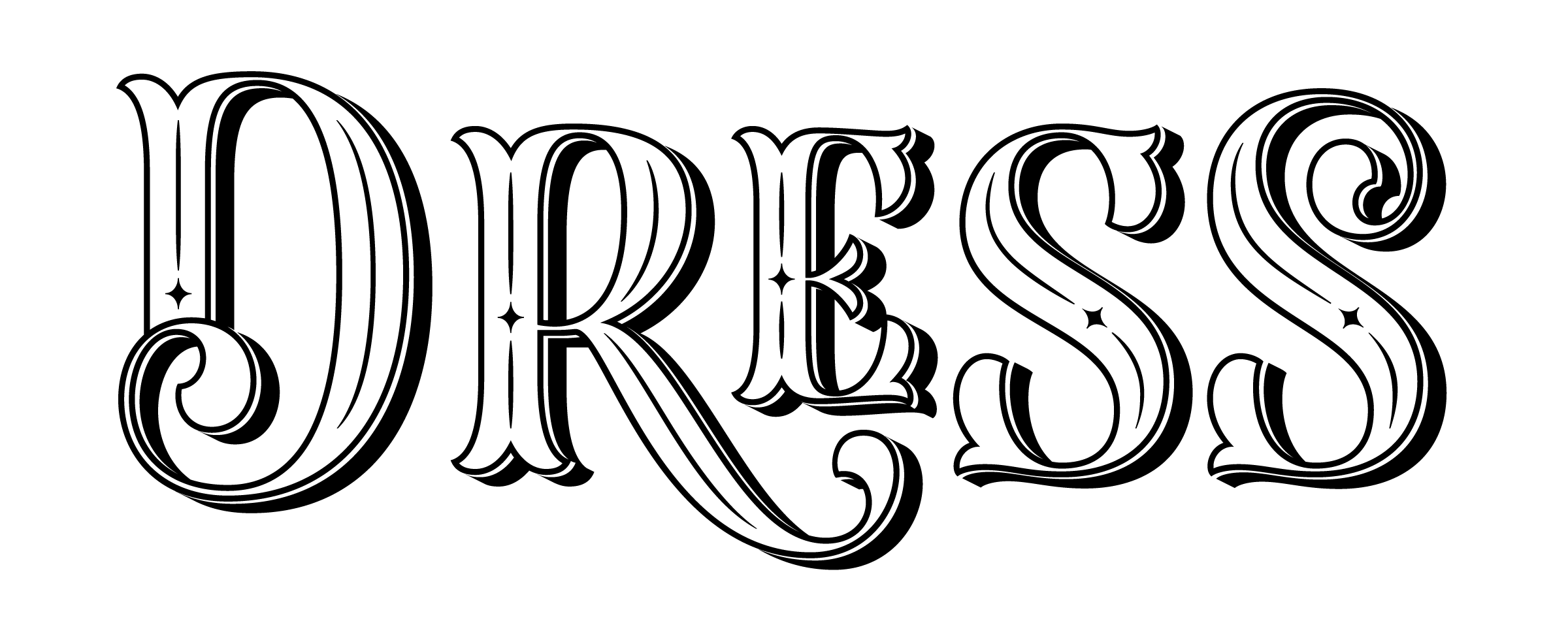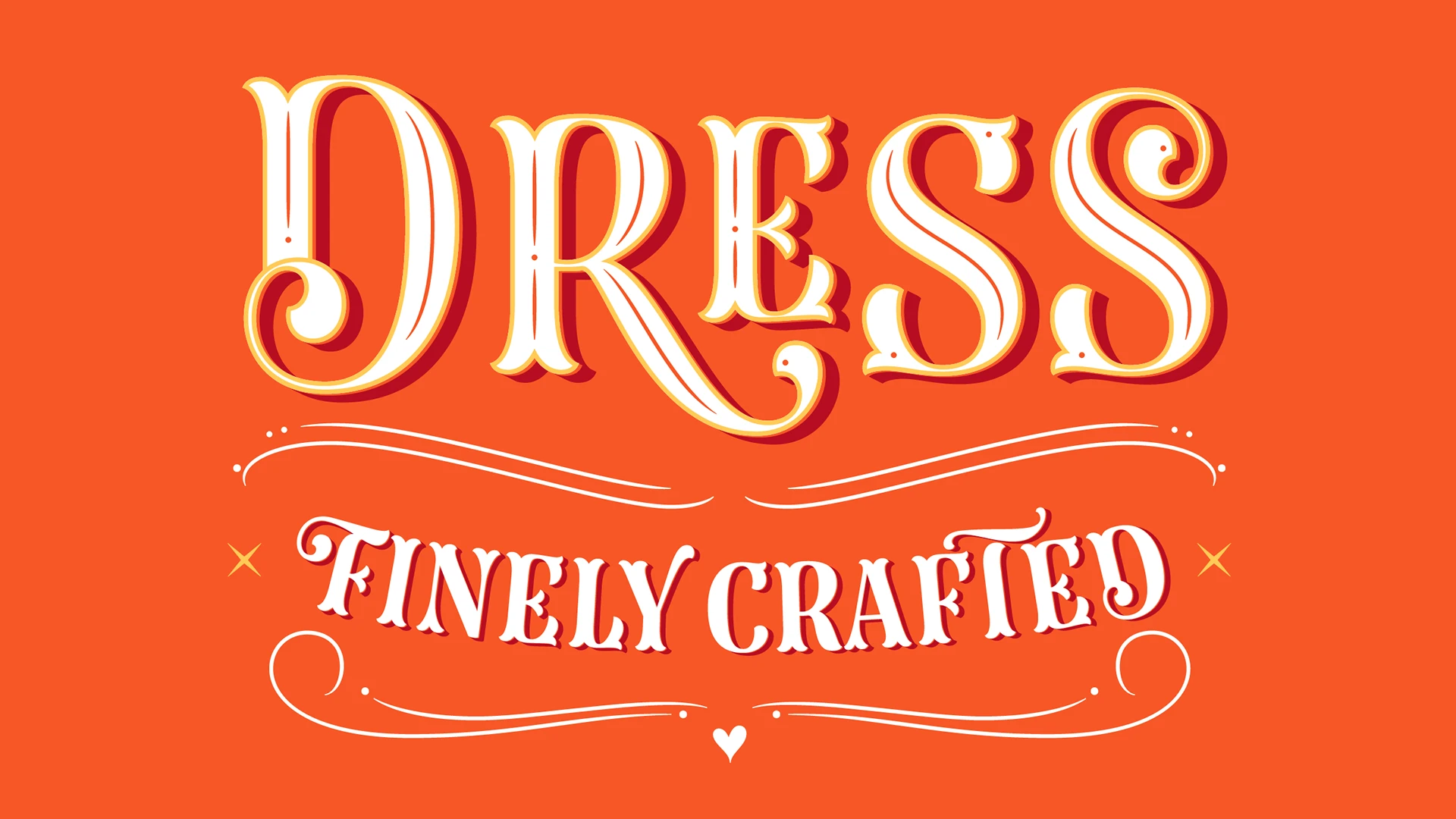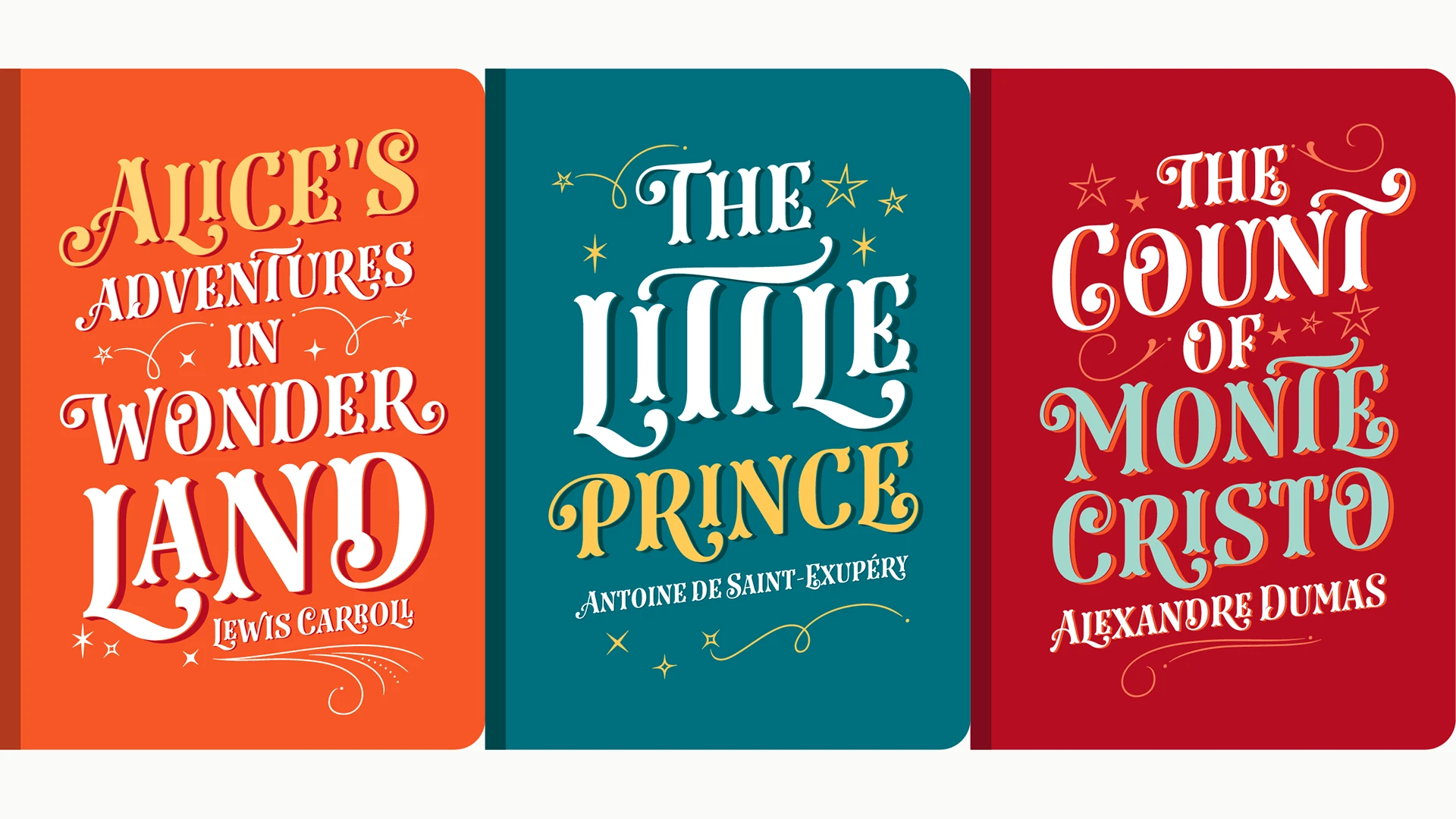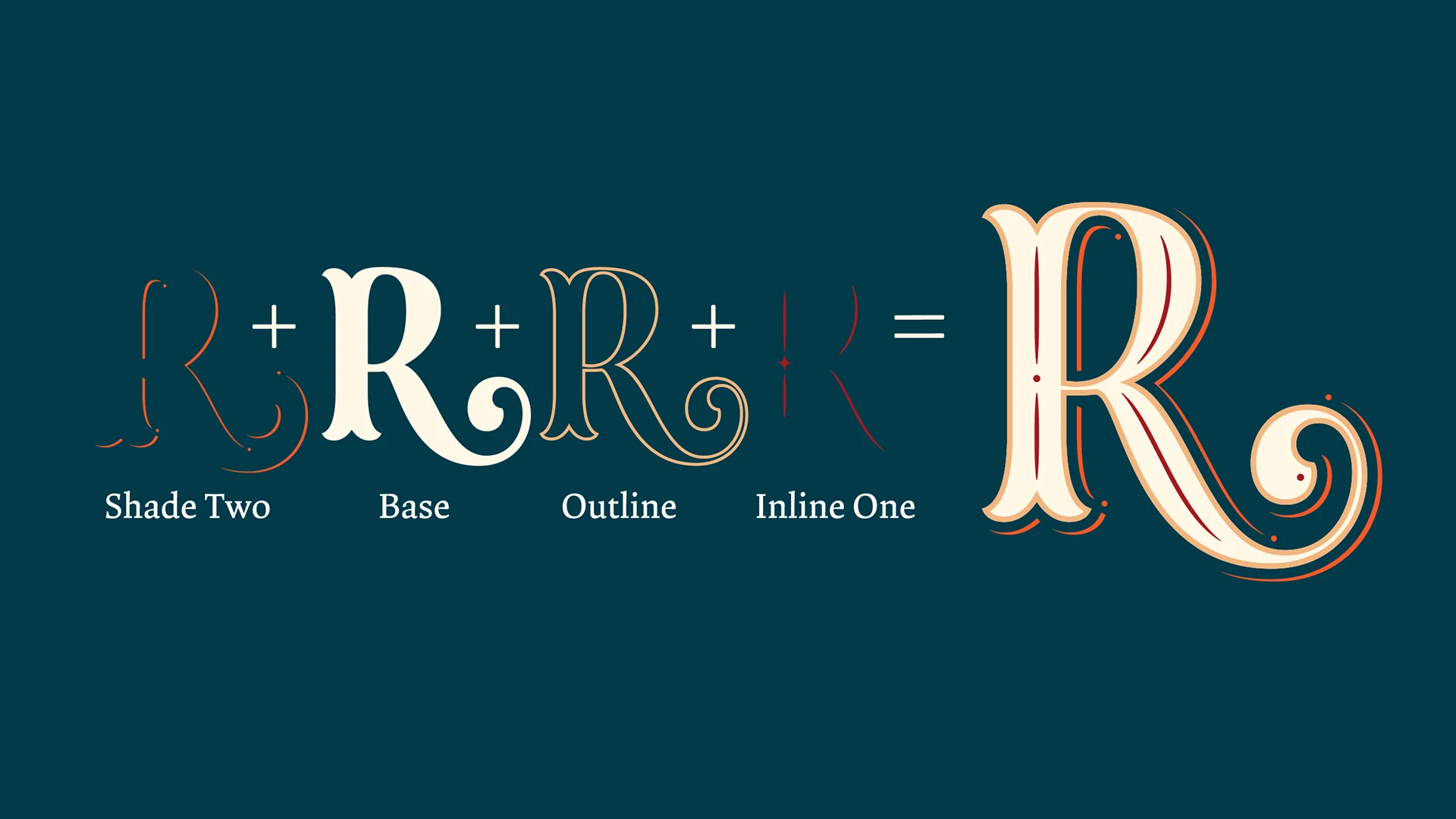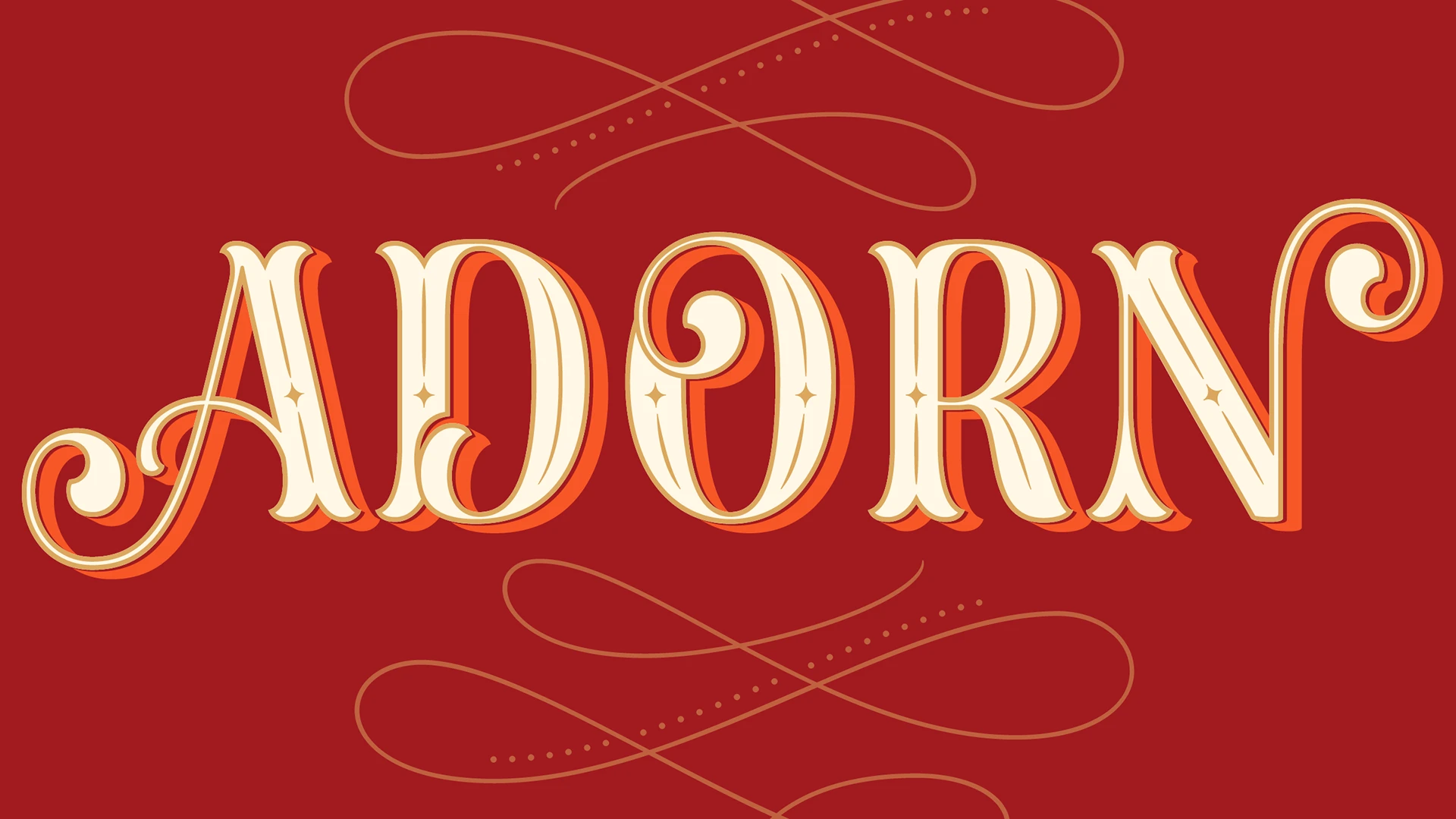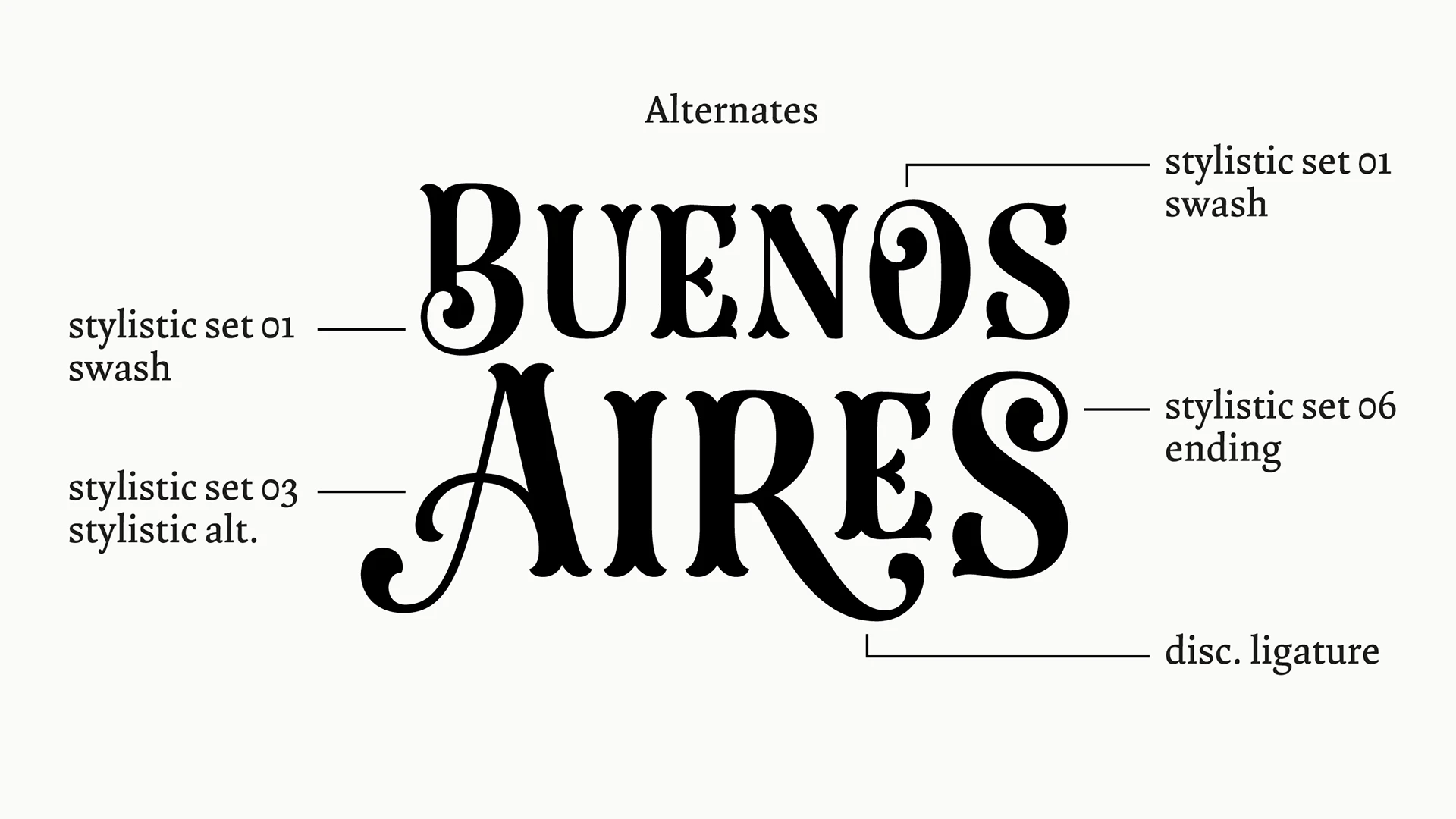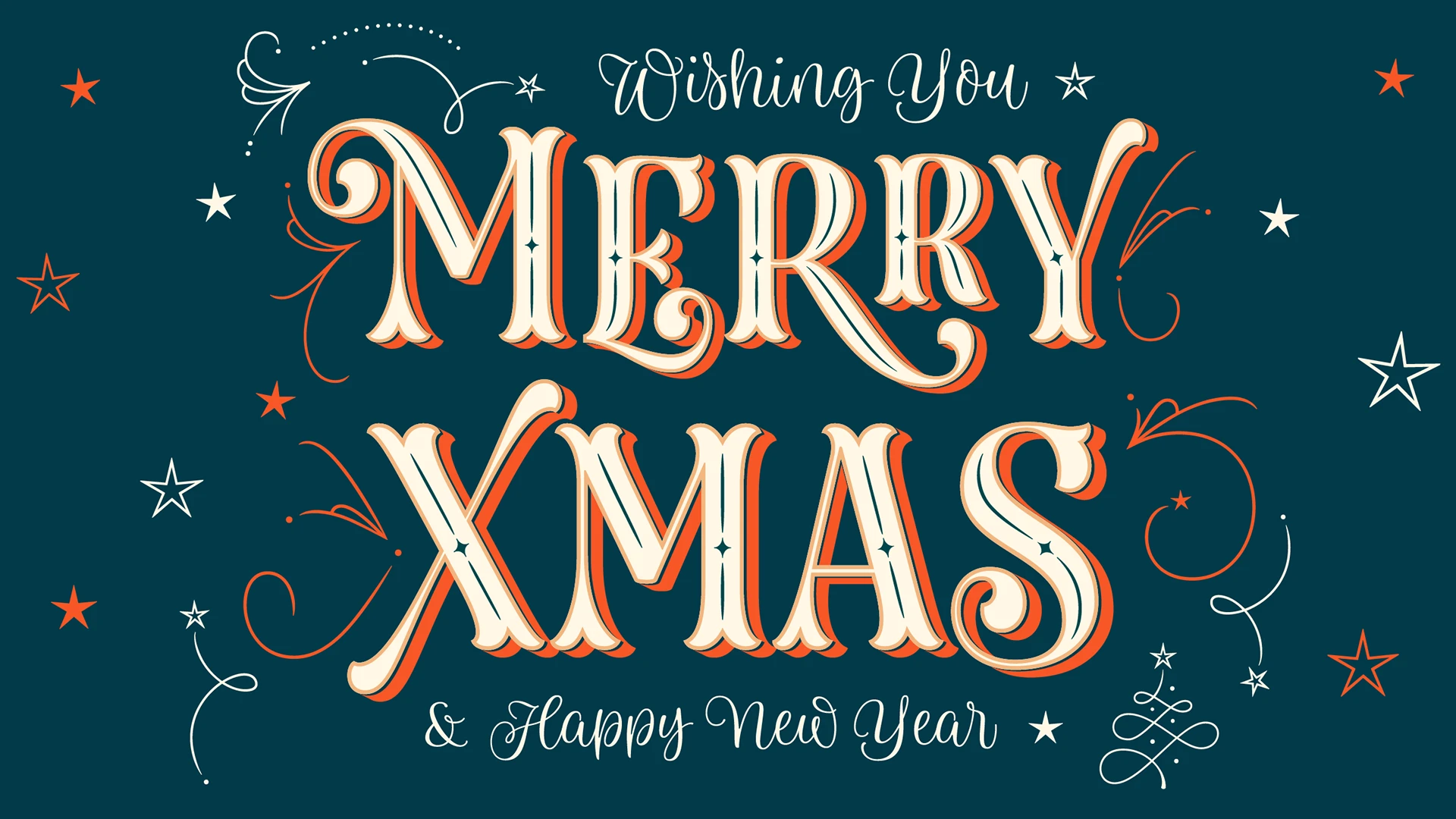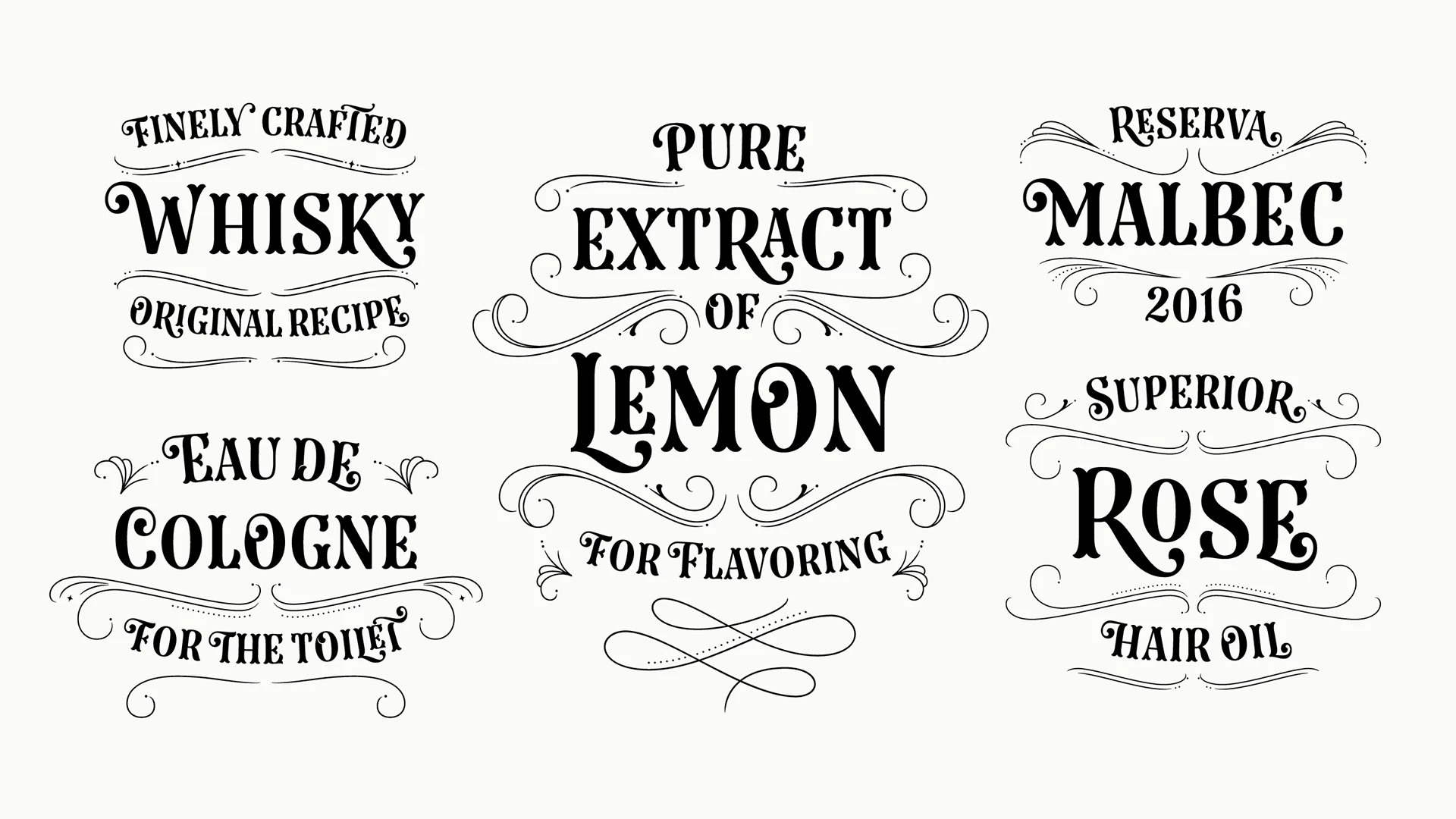
Dress Font Family
Influenced by the ornamented capitals found in late nineteenth century specimens, this layered font was designed to decorate publication covers, labels, stationery or any other piece that needs to be embellished. This family intends to dress any work.
Started up by the author’s hand, Dress is a professional work, accurate, well spaced, with ligatures and alternates for uppercases, initials, endings and figures. Each variable contains more than 1200 glyphs with plenty of OpenType features and extensive Western, Central and Eastern European language support. Use professional software that widely support Open Type features. Otherwise, you may not have access to some glyphs. For further information about features and alternates, see the User Guide
The main member of this family is the Base font which can be used alone or decorated with the layers: Shade One or Shade Two, Inline One or Inline Two and Outline. In this way, experienced designers will create their own combinations. On the other hand, there are multi-layered fonts that make Dress easier to use: Dress Combo One to Five. Additionally, Dress Deco adorns the beginning and the ending of the words, while the Ornaments decorates the whole design. The family package contains all this thirteen options.
Dress font by Typesenses — the word “DRESS” in large, ornate, layered serif capitals above the italicized words “FINELY CRAFTED” framed by decorative swirls and a small heart.
Dress font by Typesenses — three book covers with ornate serif lettering and decorative stars, swirls, and flourishes, reading “Alice’s Adventures in Wonderland by Lewis Carroll,” “The Little Prince by Antoine de Saint-Exupéry,” and “The Count of Monte Cristo by Alexandre Dumas”
Dress font by Typesenses — the letter R shown as four separate ornamental layers and then combined into a single ornate letterform
Dress font by Typesenses — the word “ADORN” in ornate, layered serif capitals with decorative swashes and dotted lines above and below.
Dress font by Typesenses — the words “Alternates” and “BUENOS AIRES” in decorative serif capitals, with lines pointing to specific letterforms and describing their stylistic features
Dress font by Typesenses — the words “Wishing You MERRY XMAS & Happy New Year” in decorative serif and script lettering, with flourishes and stars